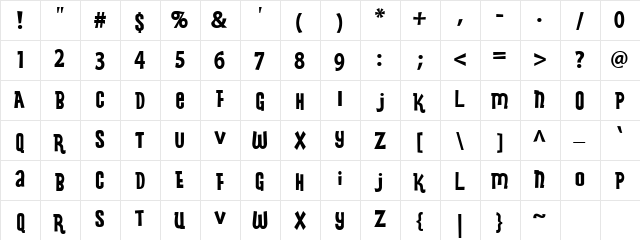
CK Surfer Regular
Design Context for CK Surfer Typeface
CK Surfer is a composed and adaptable typeface that performs quietly and consistently across a wide range of design contexts.